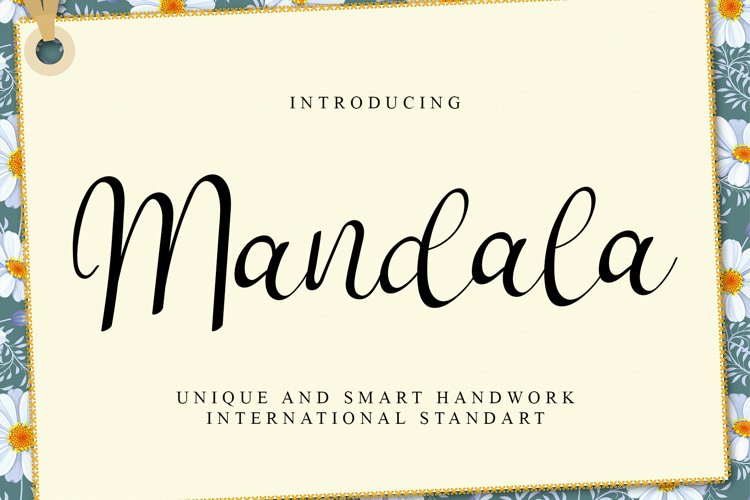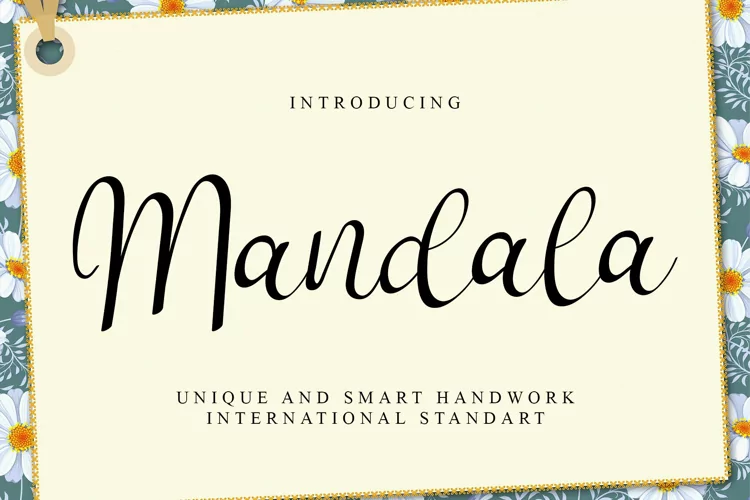
Mandala script
Introducing, this is our newest product, we call this product Mandala script,
It looks amazing with sweet touches and beautiful curves in each letter. Mandala script fonts are perfect for: wedding invitations, fashion magazines, logos, signatures, photography, watermarks, wall displays, social media,